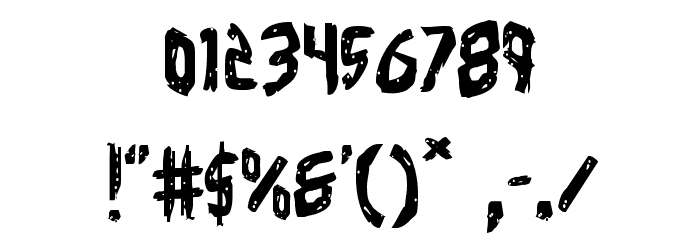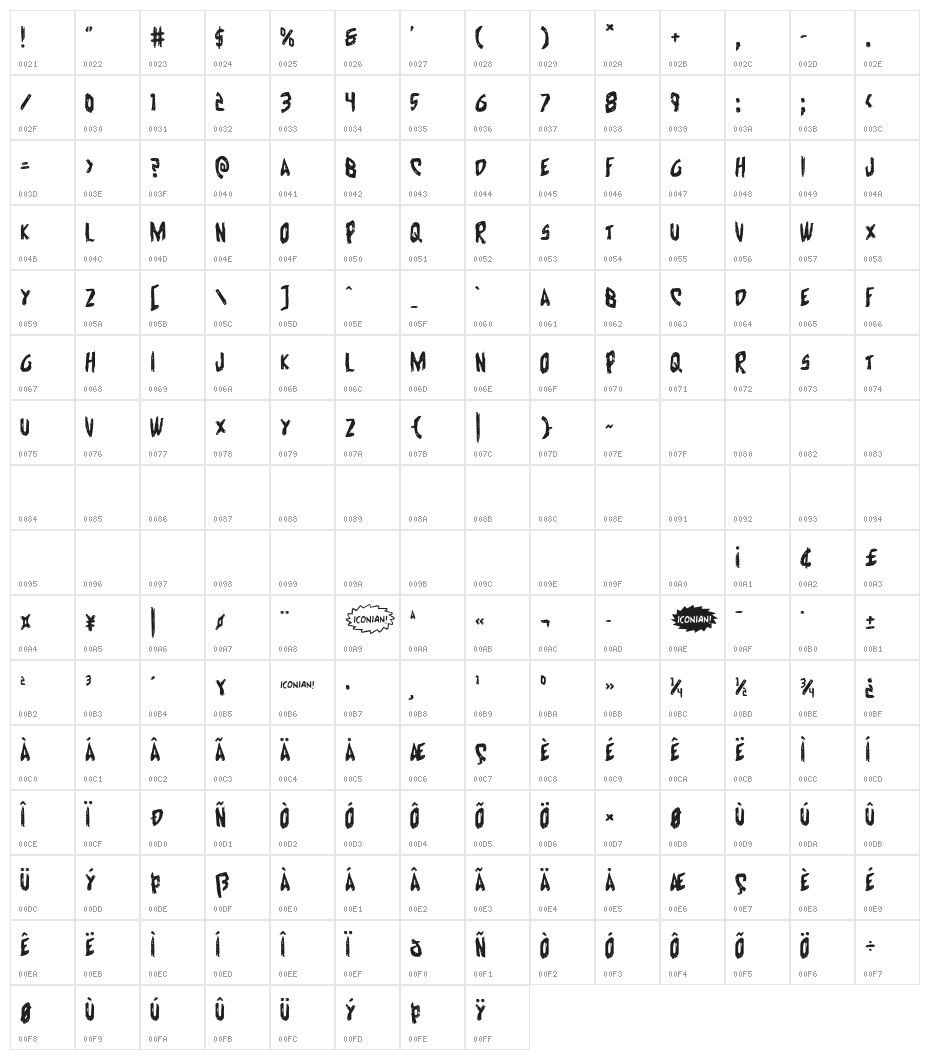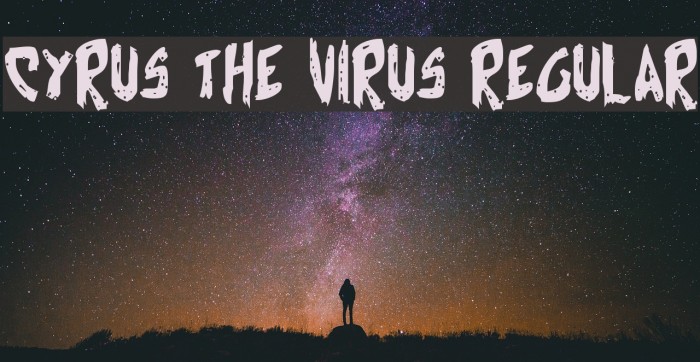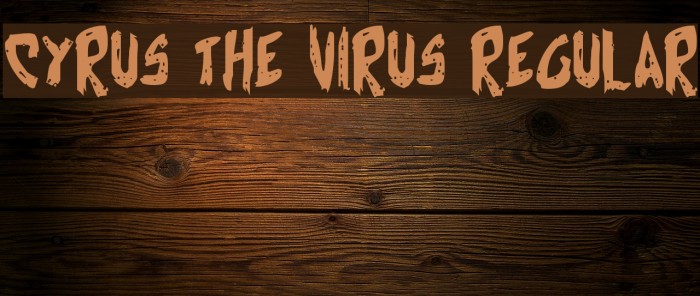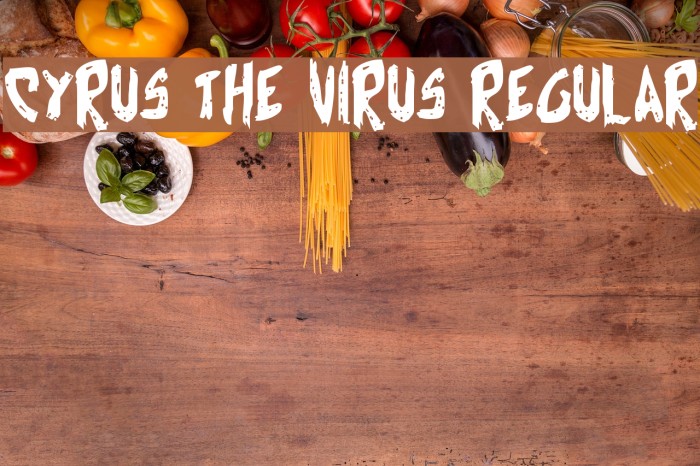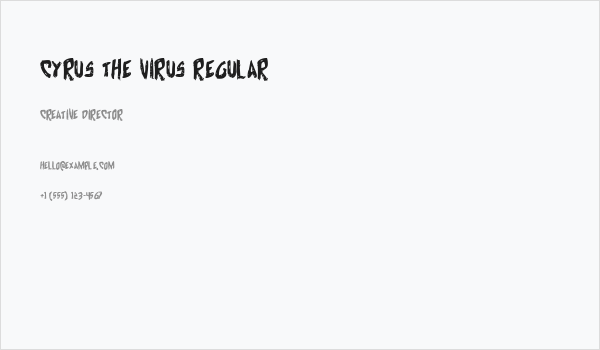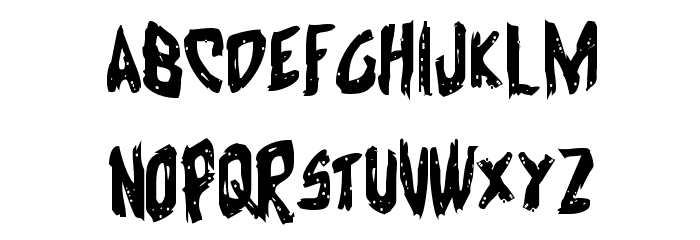
Cyrus the Virus Regular Font
Cyrus the Virus Regular Description
This font features a bold, distressed style with jagged edges and irregular shapes, giving it a rugged and edgy appearance. The characters are designed to look worn and weathered, with a grunge aesthetic that suggests a sense of chaos and energy. The uppercase and lowercase letters maintain a consistent style, with each character exhibiting unique cuts and textures that add to the overall distressed look. The numerals and special characters follow the same design principles, ensuring a cohesive appearance across all glyphs. This font is ideal for projects that require a bold, impactful statement with a touch of rebellion.
| Proposed Projects | Ideal for music album covers, event posters, streetwear branding, and edgy graphic designs. |